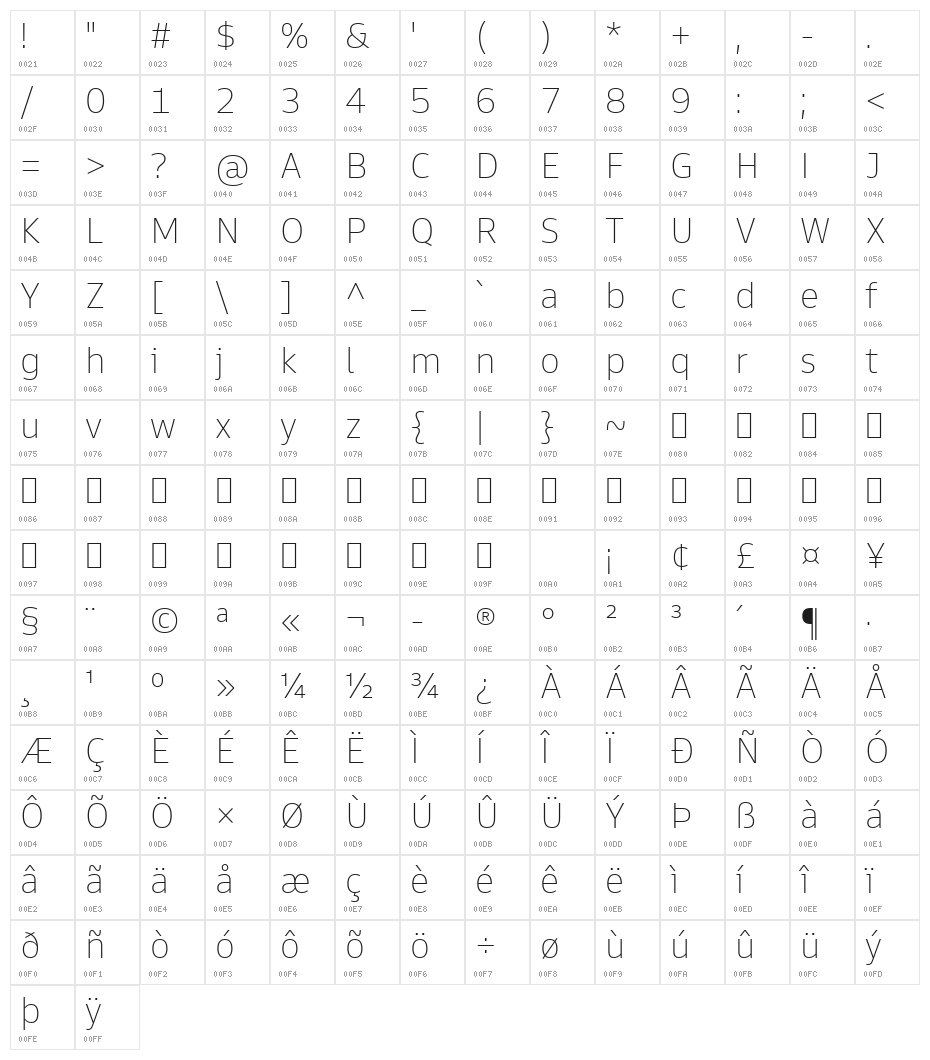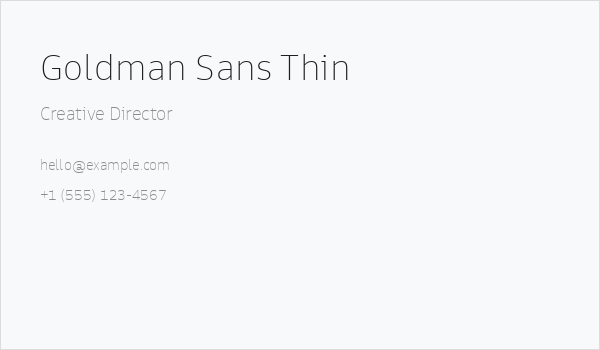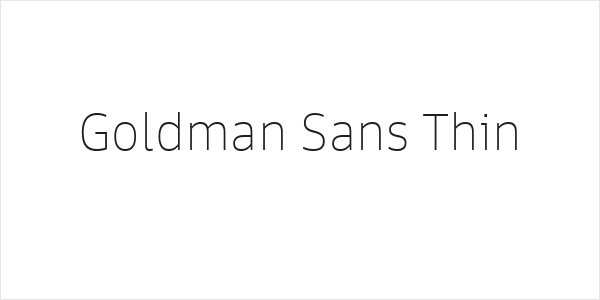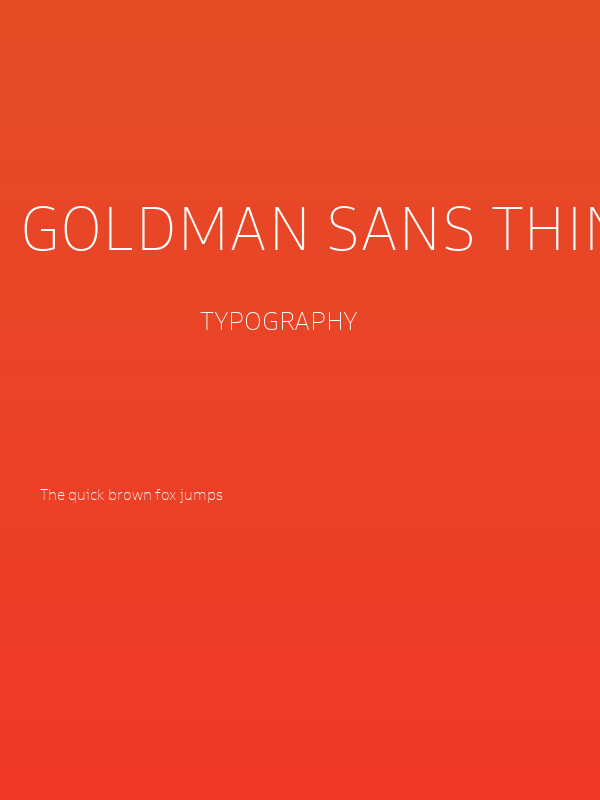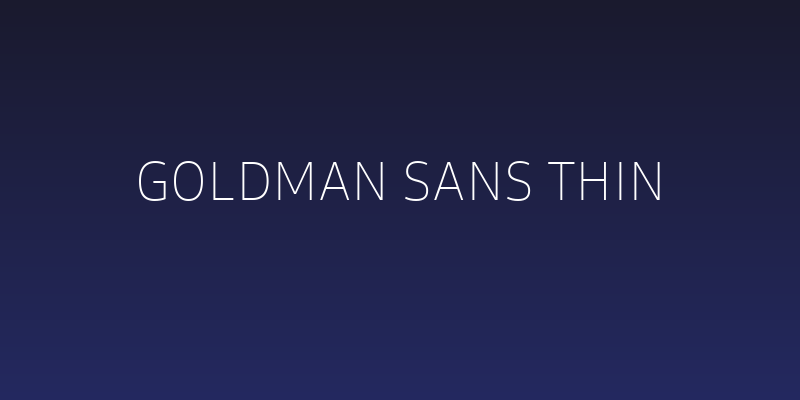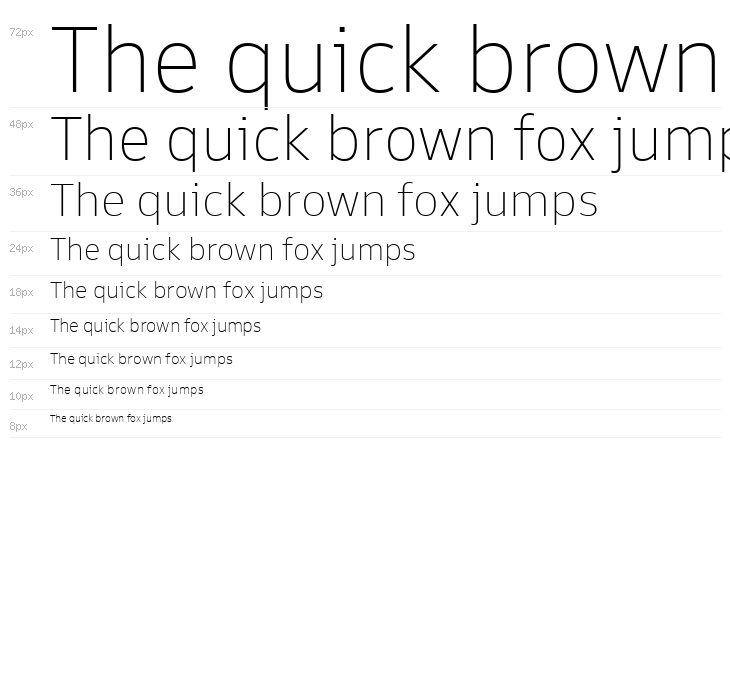
Goldman Sans Thin Font
Goldman Sans Thin Description
This font features a clean and modern sans-serif design with a thin weight, offering a sleek and minimalist appearance. The characters are evenly spaced, providing a balanced and airy feel. Its geometric shapes and uniform stroke widths contribute to a contemporary aesthetic, making it suitable for digital and print media. The font's simplicity and clarity enhance readability, while its subtle elegance adds a touch of sophistication. It includes a full set of uppercase and lowercase letters, numerals, and a variety of special characters, ensuring versatility for various applications.
| Proposed Projects | Ideal for tech branding, minimalist web design, modern advertising, and corporate presentations. |